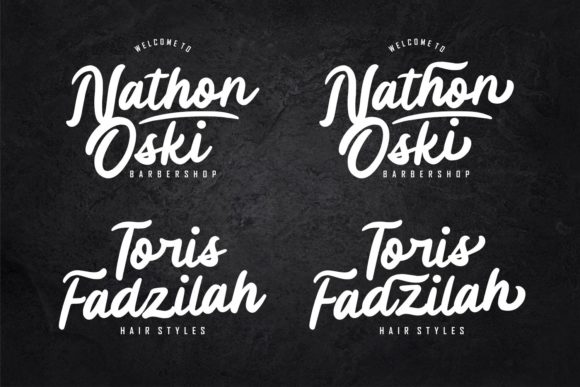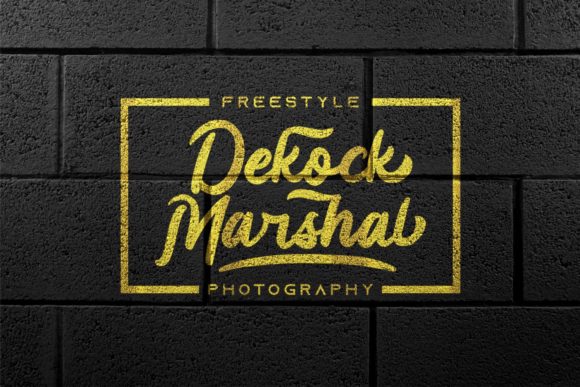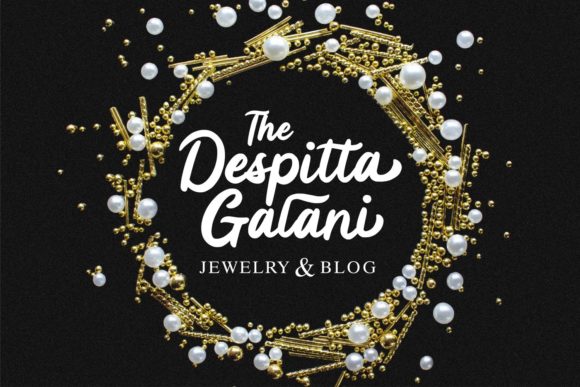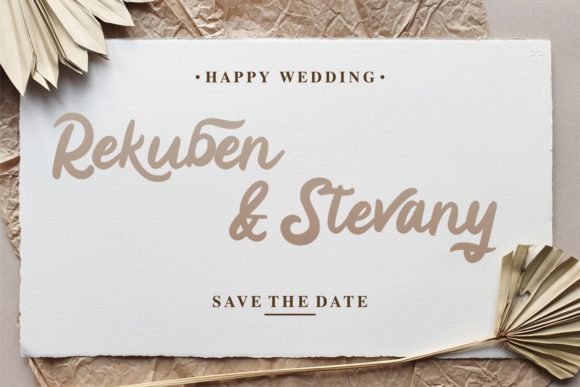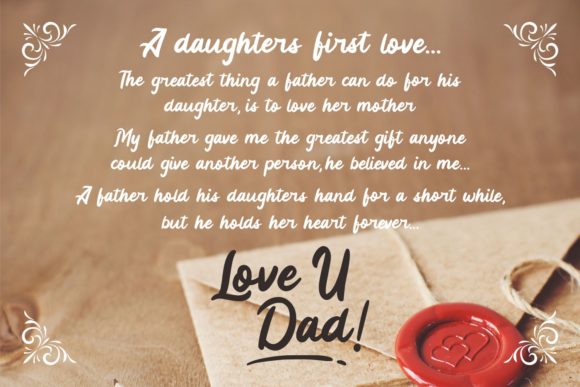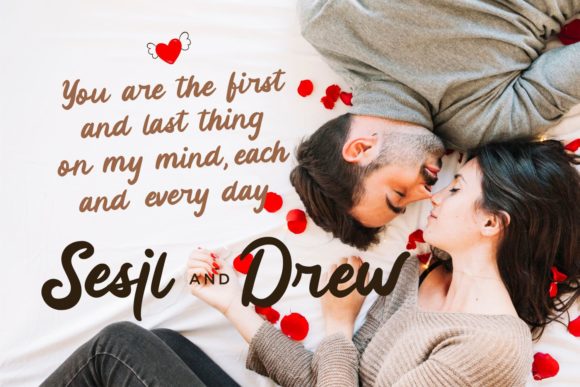
Introduction to Mayrisand Font
Mayrisand is a gorgeous and bold handwritten font, crafted to give your headlines and logotype projects a stylish touch.
This font reads as strong, confident, and dynamic and can add tons of nostalgic character to your designs .